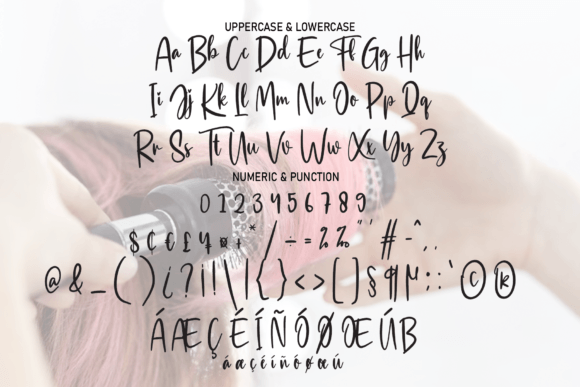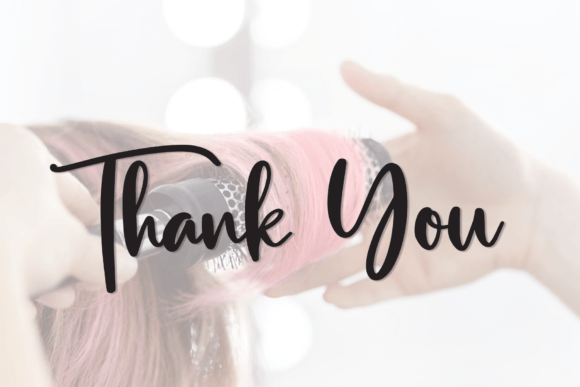
Introducing Hairstyle Font: Elevate Your Designs with Elegance
Are you on the hunt for a font that exudes elegance and sophistication? Look no further than Hairstyle Font, a stunning flowing handwritten font that is sure to capture your heart. With its incredibly distinct and timeless style, Hairstyle Font is the perfect addition to your favorite projects, allowing you to create spectacular designs that leave a lasting impression.
The Essence of Hairstyle Font
Hairstyle Font is a beautiful, elegant handwritten font that boasts a unique and refined aesthetic. Its flowing lines and curves create a sense of movement and fluidity, making it perfect for designs that require a touch of sophistication. Whether you’re working on a logo, branding materials, or digital content, Hairstyle Font is sure to elevate your project to new heights.
Key Features of Hairstyle Font
- Elegant and Refined Aesthetic: Hairstyle Font features a beautiful, elegant handwritten style that is perfect for designs that require a touch of sophistication.
- Flowing Lines and Curves: The font’s flowing lines and curves create a sense of movement and fluidity, making it perfect for designs that require a dynamic feel.
- Incredibly Distinct and Timeless Style: Hairstyle Font’s unique style is sure to make your designs stand out from the crowd, while its timeless quality ensures that your designs will remain relevant for years to come.
- Perfect for a Variety of Projects: Whether you’re working on a logo, branding materials, digital content, or craft projects, Hairstyle Font is a versatile choice that can be used in a wide range of applications.
Use Cases for Hairstyle Font
Hairstyle Font is a versatile font that can be used in a wide range of applications, including:
- Logo Design: Create a stunning logo that exudes elegance and sophistication with Hairstyle Font.
- Branding Materials: Use Hairstyle Font to create consistent and cohesive branding materials, including business cards, letterheads, and brochures.
- Digital Content: Add a touch of elegance to your digital content, including social media graphics, blog posts, and email newsletters.
- Craft Projects: Use Hairstyle Font to add a personal touch to your craft projects, including handmade cards, scrapbooking, and DIY decorations.
Tips for Using Hairstyle Font
To get the most out of Hairstyle Font, here are a few tips to keep in mind:
- Use it Sparingly: Hairstyle Font is a bold and elegant font, so use it sparingly to avoid overwhelming your design.
- Pair it with Other Fonts: Experiment with pairing Hairstyle Font with other fonts to create a unique and visually appealing combination.
- Experiment with Colors: Try out different colors and color combinations to find the perfect match for your Hairstyle Font design.
In conclusion, Hairstyle Font is a stunning flowing handwritten font that is sure to elevate your designs to new heights. With its elegant and refined aesthetic, flowing lines and curves, and incredibly distinct and timeless style, Hairstyle Font is the perfect addition to your favorite projects. Whether you’re a designer, crafter, or DIY enthusiast, Hairstyle Font is a versatile choice that can be used in a wide range of applications. So why wait? Fall in love with Hairstyle Font and start creating spectacular designs today!